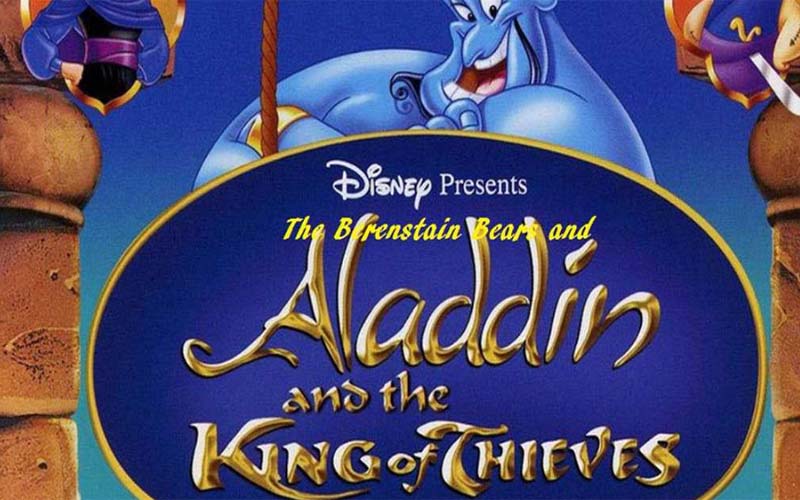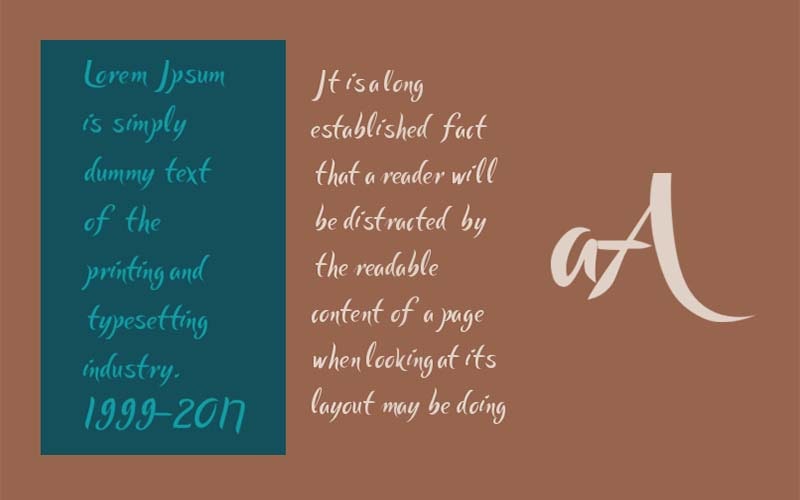
King Of Thieves Font is a logo font that is based on the 2019 Aladdin movie logo and that is used to give a natural look to any design. That was designed and published by Joanna Vu.
This decorative font that consists of only one weight with True Type features and has 67 glyphs and 69 characters. Its excellent structure shows that someone is making it with their own hands.
You can openly use this handwritten font for many works such as special events cards, product packaging, t-shirt printing, book covers, quotes, stationery, and posters, use it for short text and large text.
This beautiful modern script has a cool handmade design that is sure to make any poster stand out. Included in this package are a complete set of letters, numbers, and easy stylistic alternatives.
King Of Thieves Font
This beautiful font will make you feel like you are walking in a beautiful spring field. This package is complete with regular font files, scripts, and even decorative swashes for additional creative designs.
So, according to this situation, we can say that its essential features are the stunning and delightful texture in the long text display. It is famous for its heavy scenery and stylish structure.